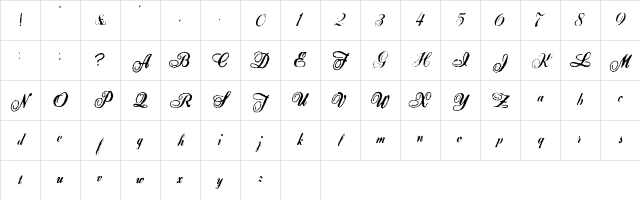
2Peas Katherine Ann 2Peas Katherine Ann Free Font
2Peas Katherine Ann 2Peas Katherine Ann
Style: 2Peas Katherine Ann
Design Context for 2Peas Katherine Ann
2Peas Katherine Ann is a composed and adaptable typeface that performs quietly and consistently across a wide range of design contexts.
Pro Tip: Use 2Peas Katherine Ann in both headline and body roles to test its range before committing to a single application.